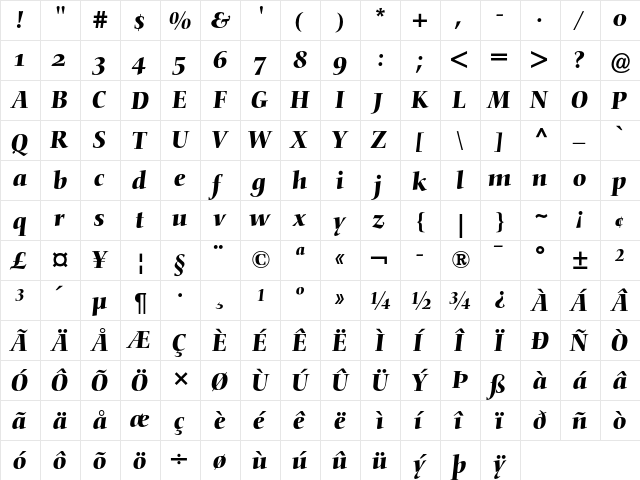
Nofret Medium Italic OsF
Design Context for Nofret Typeface
Nofret offers clean, dependable letterforms without strong stylistic allegiance, making it a practical choice for designers who need flexibility. Its italic angle brings a sense of urgency and motion to the letterforms.
Pro Tip: Use Nofret for emphasis, pull quotes, and subheadings where its slanted energy can add rhythm to the layout.